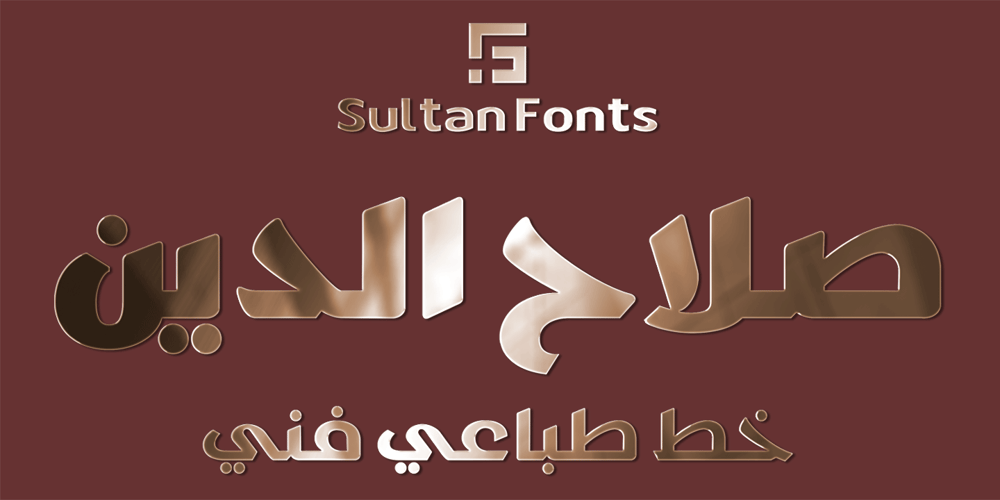
SF Saladin Font Family was designed by Sultan Maqtari and published by Sultan Fonts. SF Saladin contains 4 styles and family package options. Saladin font family is designed to be used in broad writing and short sentences. It is an ornate heading font with minimal details. Its domain is stationery, logos, branding, ad design, and posters, and it can be paired with a range of other font styles to create different moods.The font family is available in 4 styles: Saladin, Saladin-bold, Saladin-curl, and Saladin-rolledThe Saladin font family supports Arabic, Latin, Persian, and Urdu.Greetings to my brother Saladin